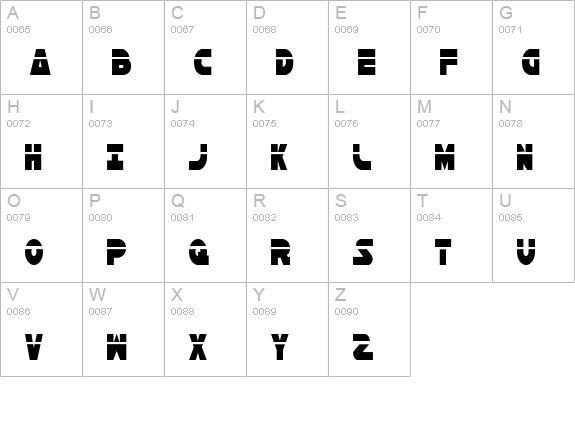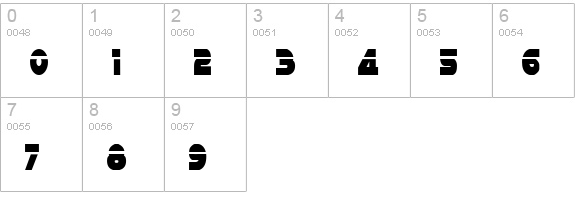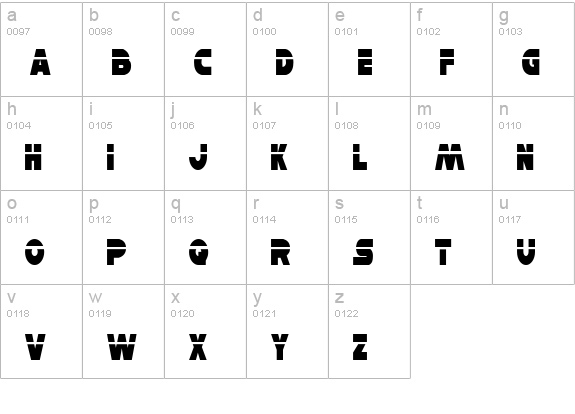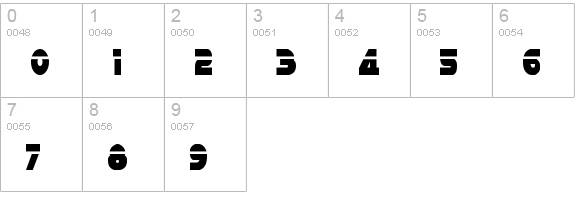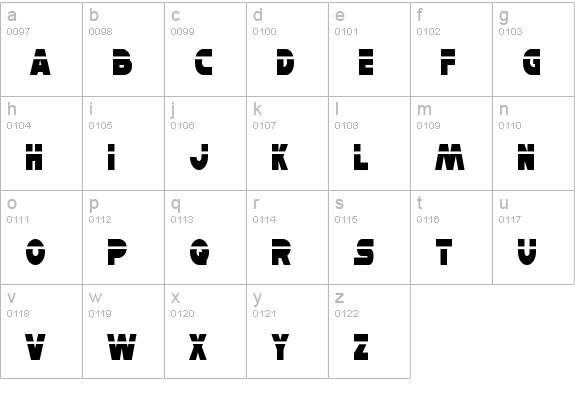
Han Solo Condensed Laser Font Details
Han Solo Condensed Laser is a distinctive, condensed-width variant in the Han typeface family \xE2\x80\x94 well suited to design and typography projects.
Introducing the Han Solo Condensed Laser font, a bold and powerful typeface that exudes the essence of adventure and rebellion. Inspired by the iconic character from the Star Wars saga, this font captures the essence of Han Solo's daring spirit and quick wit. With its condensed design and laser-like precision, this font is perfect for creating eye-catching and impactful designs. Whether you're designing a movie poster, a book cover, or a logo for a sci-fi themed project, the Han Solo Condensed Laser font will add a touch of excitement and intrigue to your creations. One of the best features of the Han Solo Condensed Laser font is that it is completely free to download at FontsMarket.com. This means that you can easily access this incredible font without any cost or hassle. It's a fantastic opportunity for designers, enthusiasts, and fans alike to incorporate a piece of the Star Wars universe into their projects. Once you download the Han Solo Condensed Laser font, you'll have endless possibilities to explore. Its sleek and futuristic look, combined with its versatility, allows you to create designs that stand out from the crowd. Whether you're aiming for a modern and edgy aesthetic or a classic and timeless feel, this font has got you covered. So, don't miss out on this incredible opportunity to add a touch of Han Solo's charisma and adventure to your designs. Download the Han Solo Condensed Laser font for free at FontsMarket.com and let your creativity soar to new heights. May the font be with you!